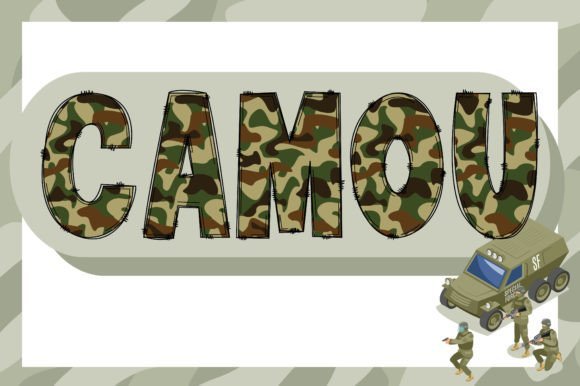
The Ultimate Camouflage for Your Designs
Have you ever stared at a blank canvas, waiting for the perfect idea to strike? You know that moment when everything comes together, and you see your brand, character, or design come to life? For designers, that ‘aha’ moment is what drives creativity and fuels our passion. And today, we’re excited to introduce you to the Camou Font – a bold, military-inspired camouflage font that’s about to take your designs to the next level.
Camou Font is more than just a font; it’s a statement piece that adds an edgy, cool vibe to any project. Its unique green forest pattern is perfect for logotypes, headlines, and corporate identity, making it an invaluable tool for designers. With Camou Font, you’ll be able to create original-looking designs that stand out from the crowd and leave a lasting impression.
- Font Family: Camou is a sans-serif font family designed for digital use. It includes multiple font weights, ranging from light to bold.
- Character Set: Supports a wide range of languages, including Latin, Cyrillic, and Greek scripts, making it suitable for global branding and design projects.
- Unique Characteristics: Camou features a unique blend of modern and minimalist design elements, making it an ideal choice for brands and designers seeking a distinctive look.
Camou Font Review
I recently had the chance to experiment with the Camou Font, and I must say it’s an interesting addition to the font family.
- Unique aesthetic: The Camou Font’s blend of geometric and organic elements creates a visually striking design that’s perfect for making a statement.
- High customization potential: The font’s adaptable nature allows it to work well in a variety of contexts, from bold headlines to subtle body text.
- Good legibility: The font’s unique design doesn’t sacrifice legibility, making it a great choice for reading-heavy content.
- Overuse potential: The Camou Font’s distinctive design may become overpowering if used extensively, so be mindful of your design choices.
- Lack of versatility in certain contexts: The font may not be the best fit for highly formal or traditional designs.
The Camou Font is a great choice for designers looking to add some visual interest to their projects. While it may not be suitable for every design context, its unique aesthetic and high customization potential make it a valuable addition to any font library.
Tips for Getting the Most Out of Camou Font
Experiment with different font sizes and styles to achieve the desired look.
Use Camou Font in combination with other fonts to create a unique and eye-catching design.
Play with color and texture to add depth and interest to your text.
Camou Font is perfect for creating eye-catching headings, titles, and captions.
Use it to add a touch of sophistication and elegance to your designs.
Experiment with Camou Font in various design contexts, such as branding, advertising, and editorial design.